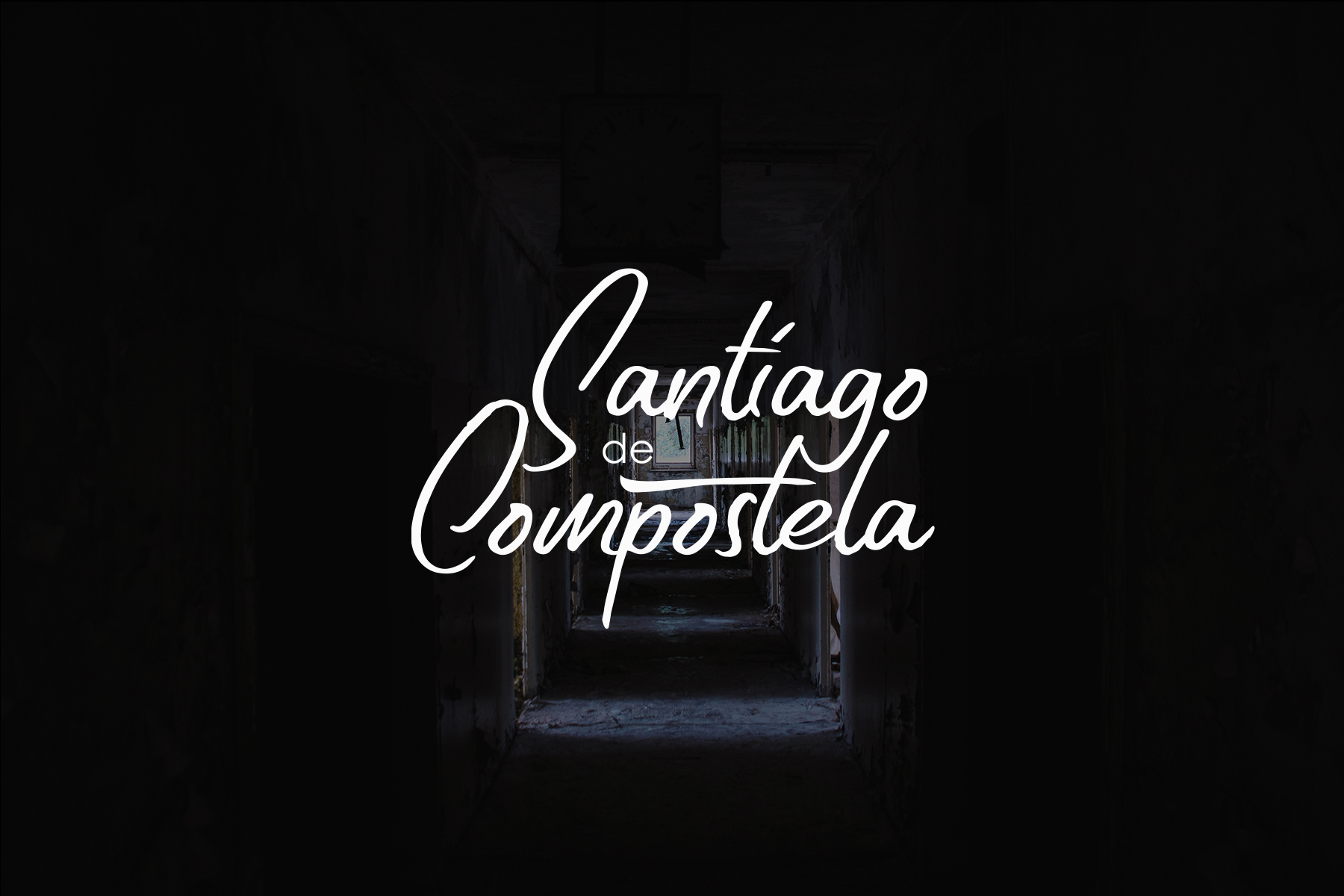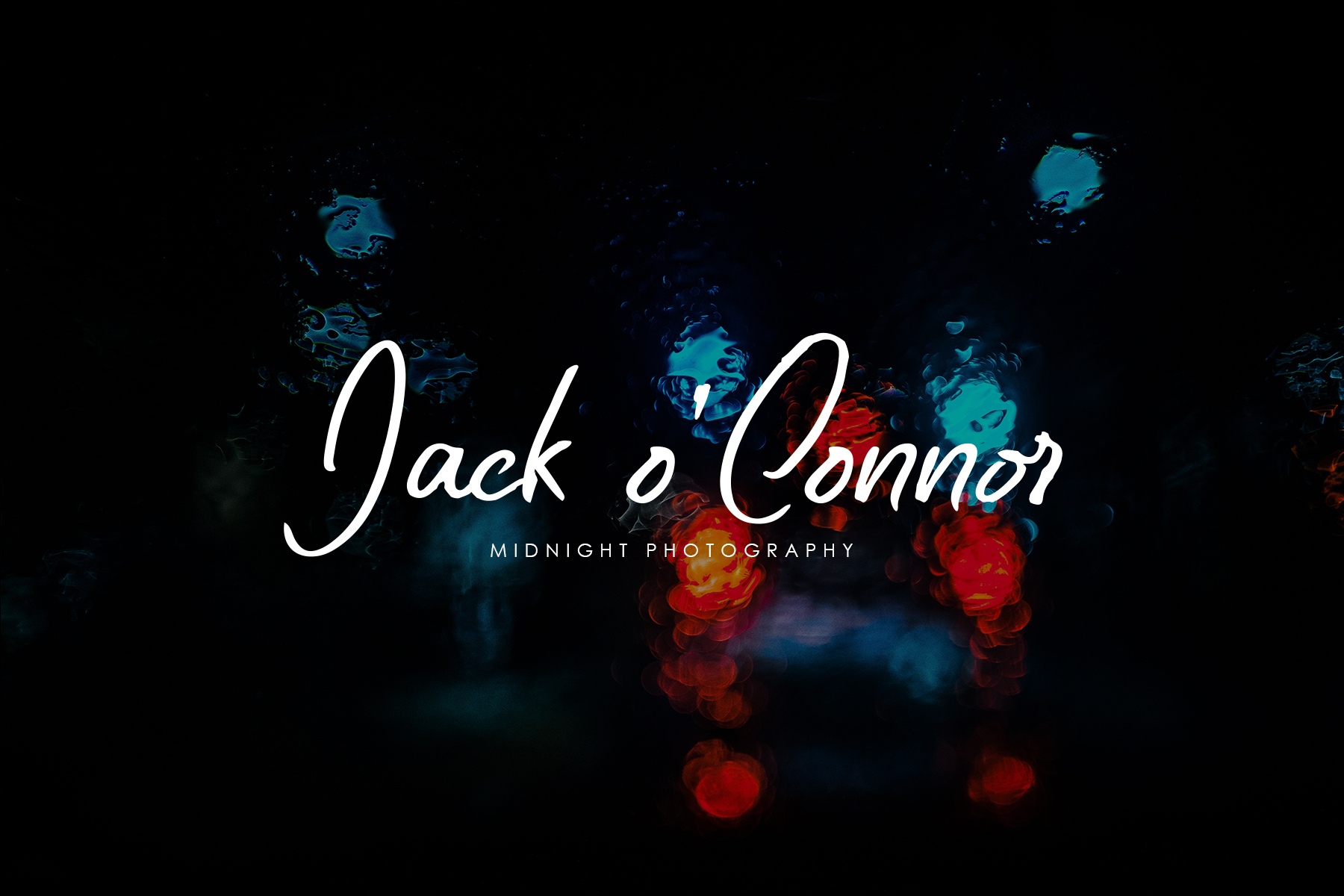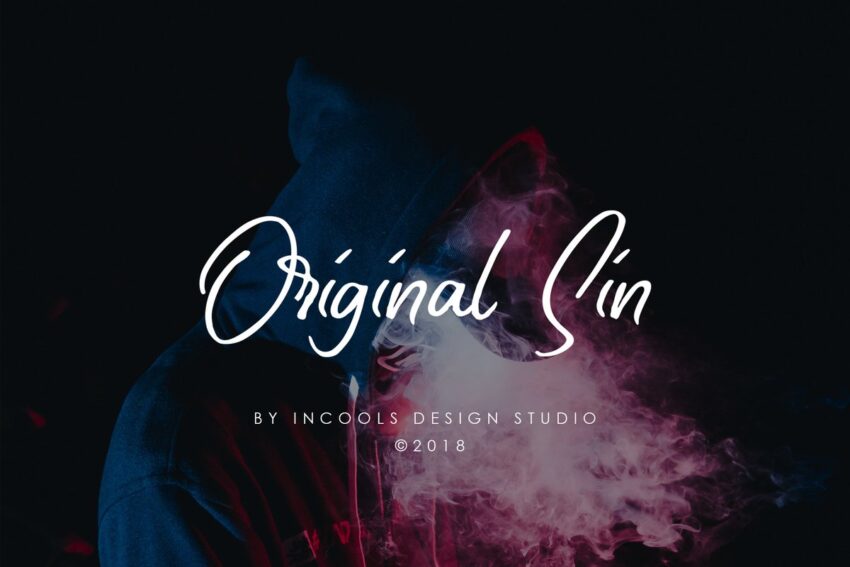
Introduction to Original Sin Font
Original Sin is something new, exciting & elegant.
The Original Sin font breathes an relaxed vibe, making it perfect for many occasions .
Key Features of Original Sin Font
Why Choose Original Sin Font?
Original Sin Font offers exceptional quality and versatility, making it a valuable addition to your design toolkit. Whether you’re creating for personal projects or commercial use, Original Sin Font delivers professional results.